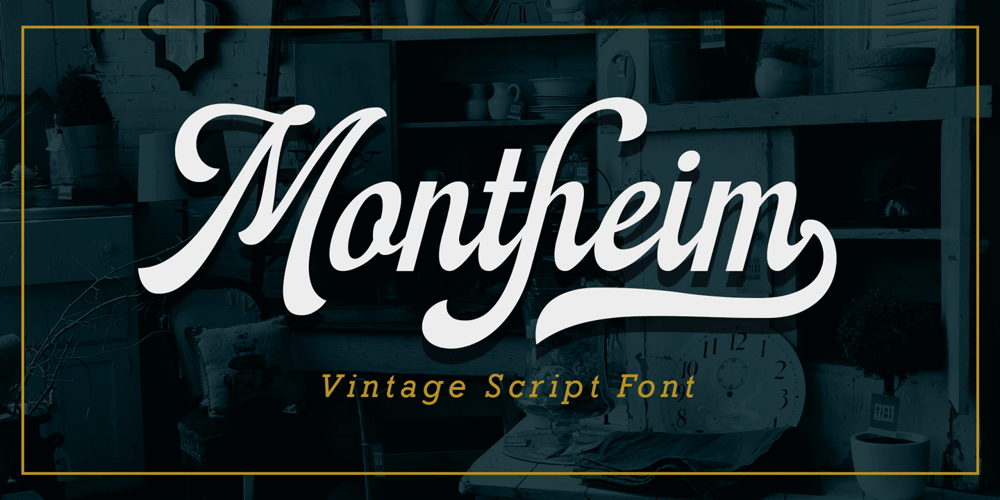
Montheim Font Family was designed by Ahmad Ramzi Fahruddin and published by Arterfak Project. Montheim contains 1 styles and family package options. Introducing Montheim, a vintage script font with medium weight. Inspired by modern retro movement and brush calligraphy, Montheim has many variations of alternates characters that you can mix and match, also with custom swashes (ligature) in the middle text and end swashes. Montheim complete with stylistic set gives more options to the layout. Montheim looks good in layout, vertical or horizontal and is the perfect choice for posters, logos, logotypes, insignia, storefronts, t-shirt designs, labels, flags, magazines, and other vintage design needs.